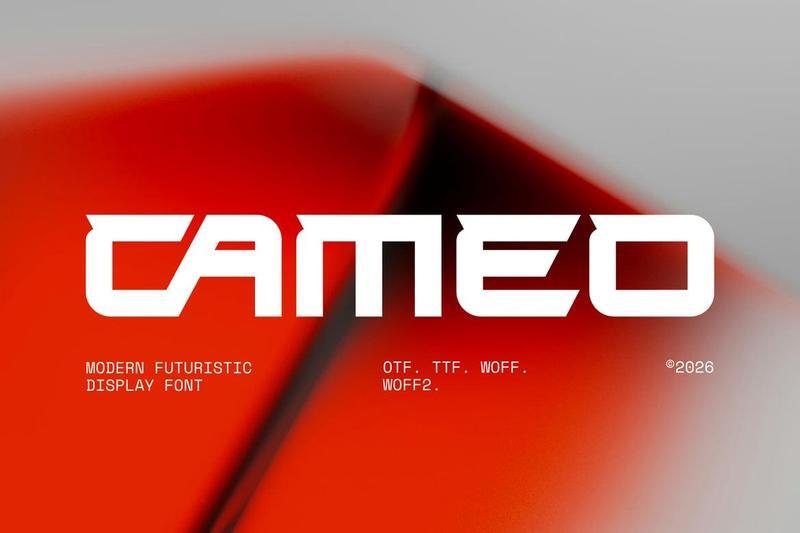
**Cameo** is a futuristic display font crafted for bold visual statements and next-generation branding. With its wide techno structure, sharp angular cuts, and strong square geometry, this modern logo font gives every word a powerful digital presence. Cameo is ideal for technology brands, gaming visuals, cyber-inspired identities, sci-fi projects, and clean modern layouts that need to look fast, advanced, and unforgettable.
Built for designers who want more than a regular tech font, Cameo delivers a cinematic style that works perfectly for movie posters, animation titles, esport graphics, digital products, and futuristic advertising. Its bold shapes create instant impact, while the clean construction keeps the design readable and professional. Cameo is a strong choice for logos, headlines, posters, and branding systems that need a modern, futuristic, and technology-driven personality.
Designed for creatives who want stylish, functional, and flexible typography for business identities, promotional materials, and standout visual projects.